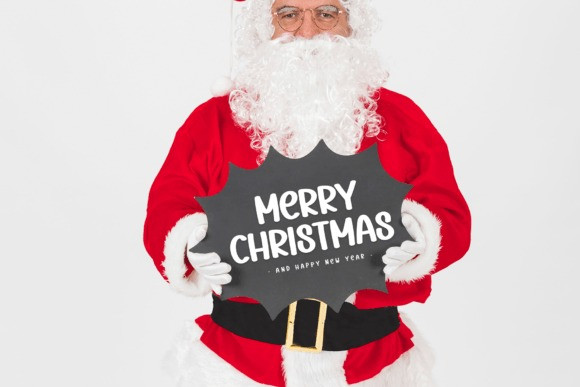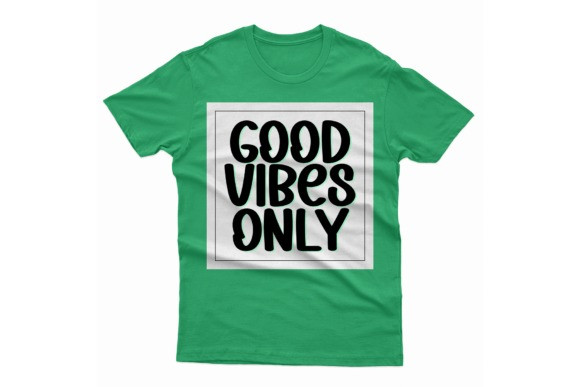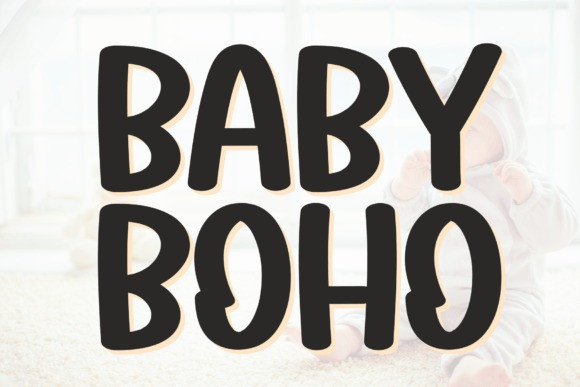
Baby Boho Cute Font
Baby Boho Cute Font is a sweet and friendly handwritten font. Its natural and unique style makes it incredibly fitting to a large pool of designs. The only limit is your imagination!